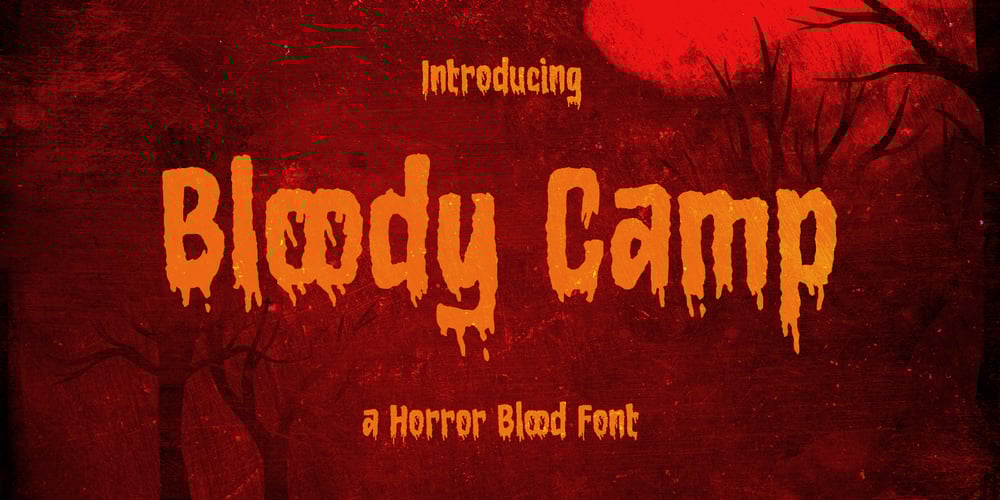
Bloody Camp Font Family was designed by Hilmius Akbar and published by Typefactory. Bloody Camp contains 1 styles and family package options. Bloody Camp is a horror blood font.Bloody Camp has a scary look and feel which makes it a great Halloween or thriller themed font.Suitable for Horror Game, Spooky T-shirts or crafts, Halloween Invitation, and many more.